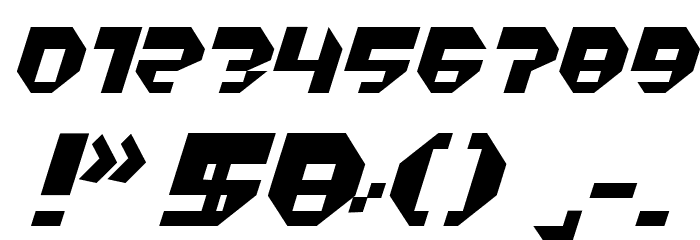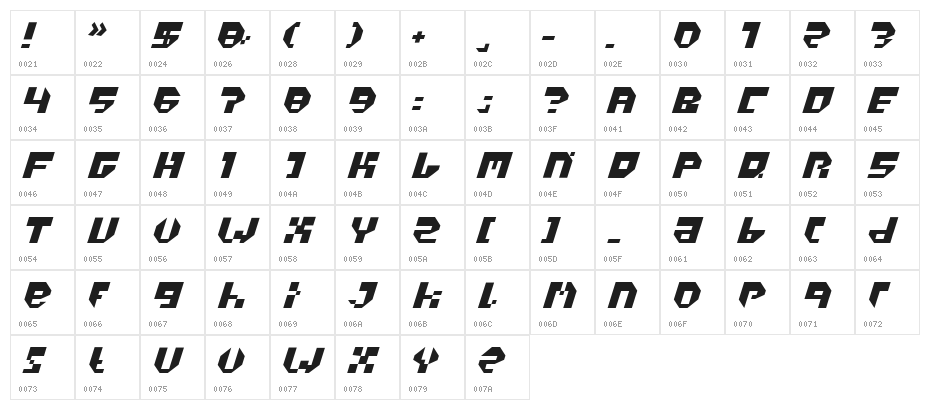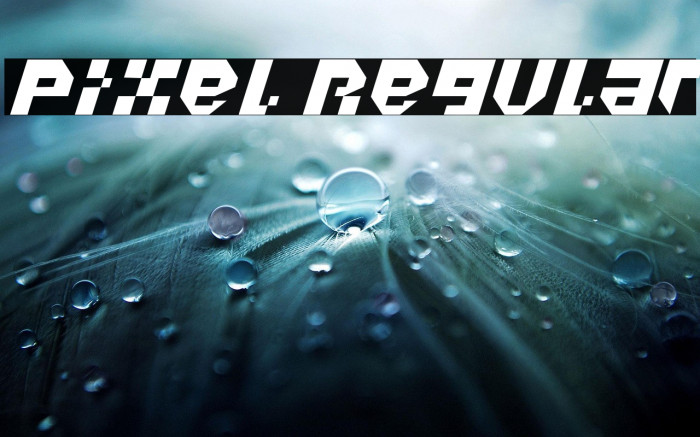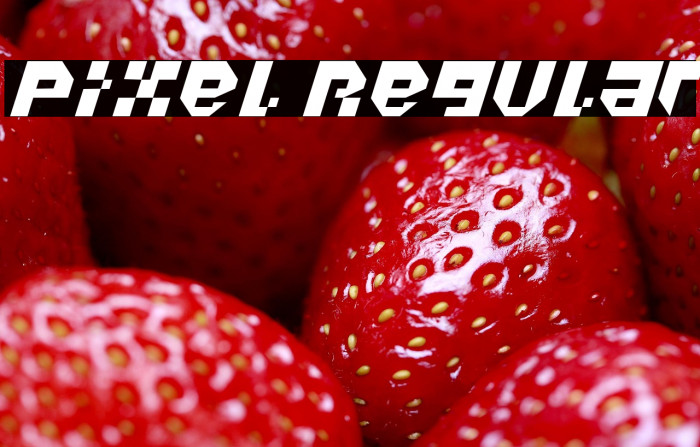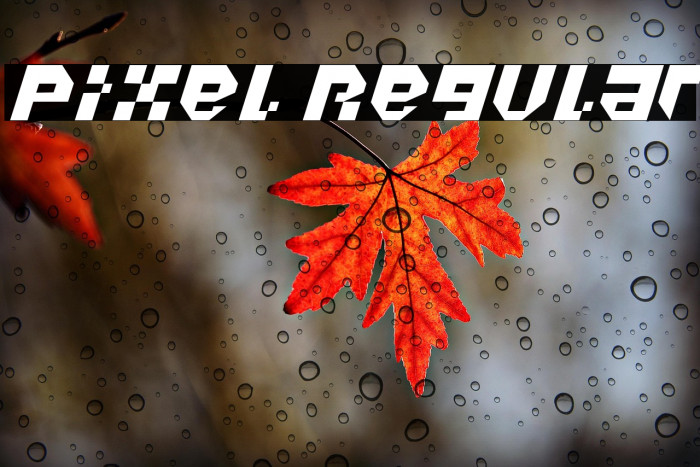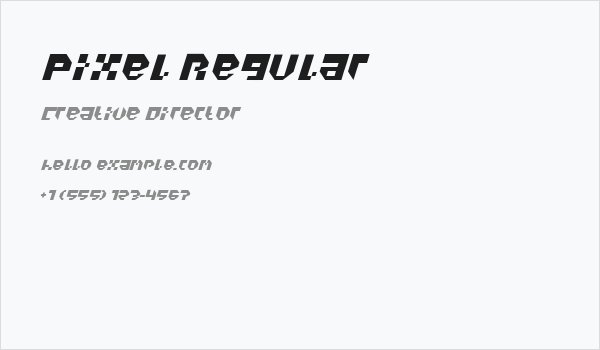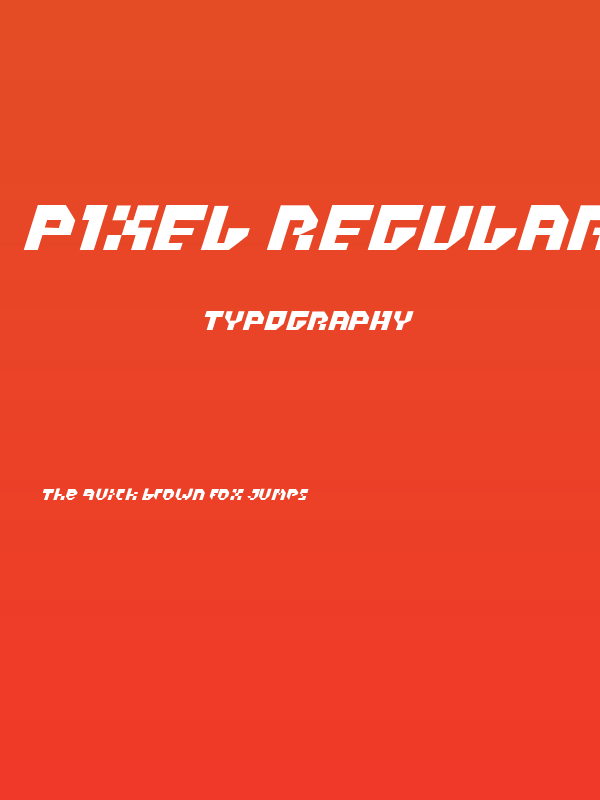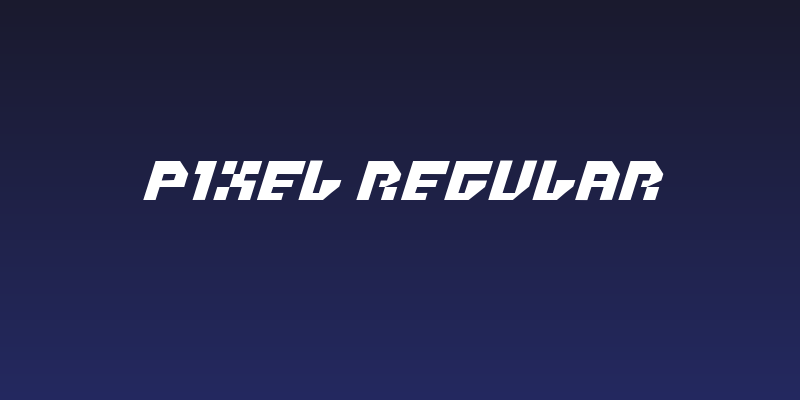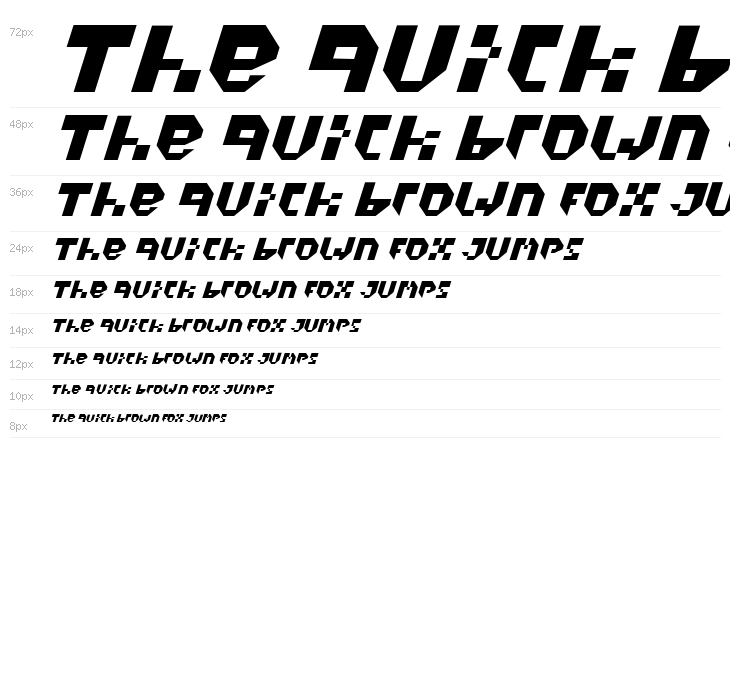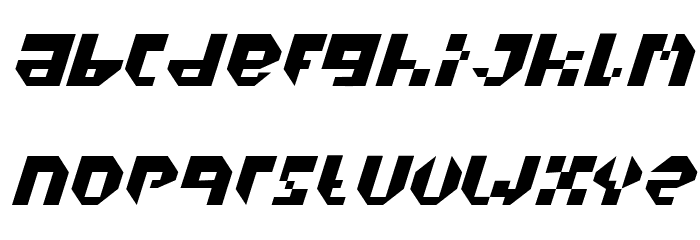
Pixel Regular Font
Pixel Regular Description
This font features a bold, angular design with a futuristic and geometric aesthetic. The characters are constructed with sharp edges and diagonal lines, creating a dynamic and energetic appearance. The uppercase and lowercase letters maintain a consistent style, with a strong emphasis on angularity. Numbers and special characters follow the same design principles, ensuring uniformity across all glyphs. The font's unique style makes it stand out, ideal for projects that require a modern and edgy look.
| Proposed Projects | Ideal for video game titles, tech branding, sci-fi posters, and modern digital interfaces. |